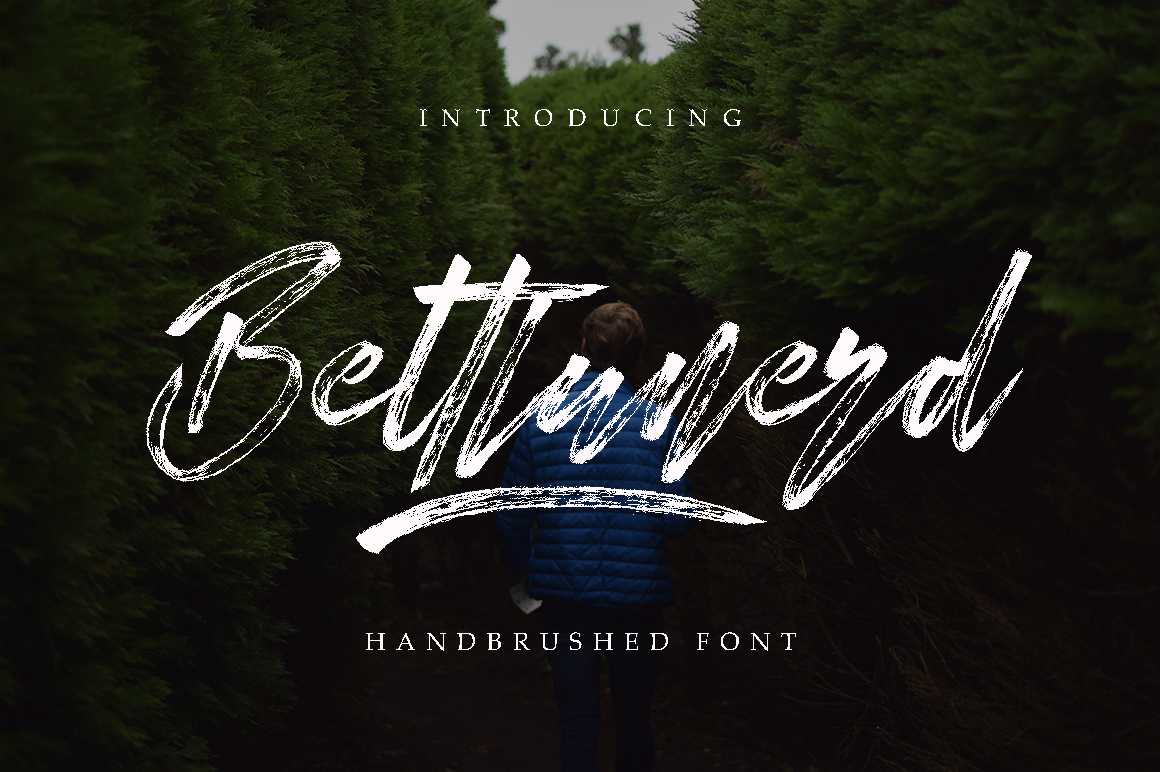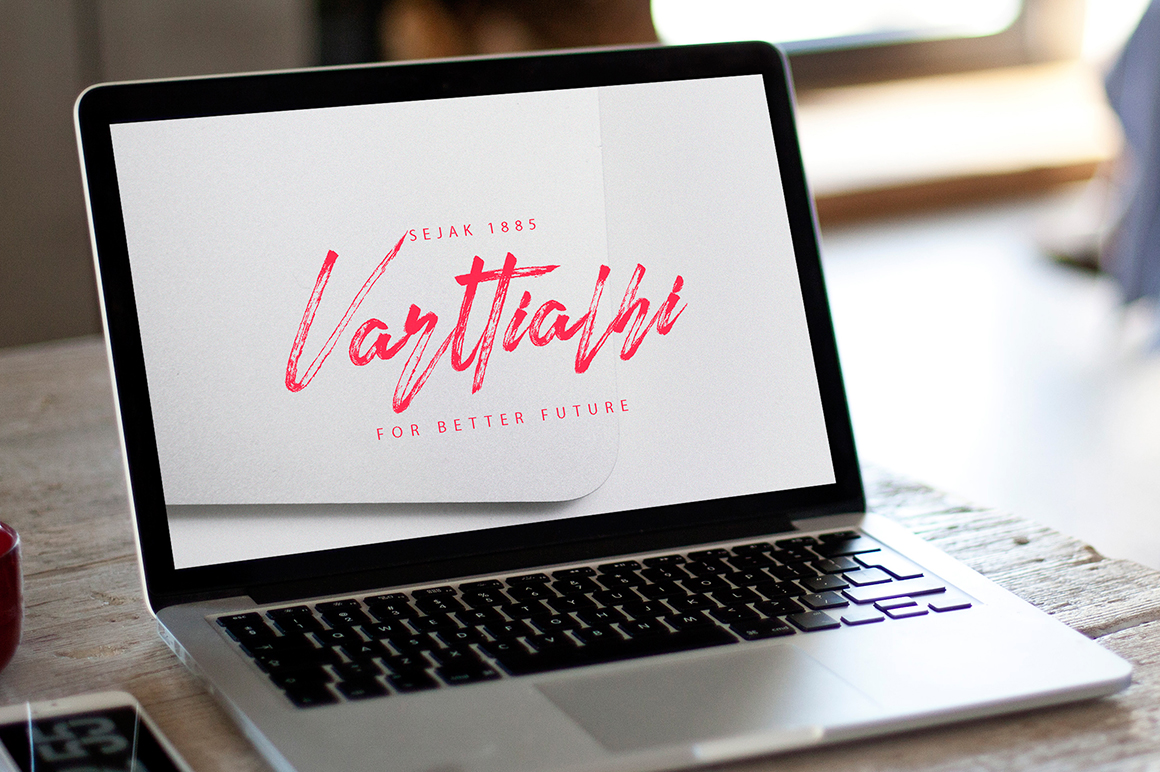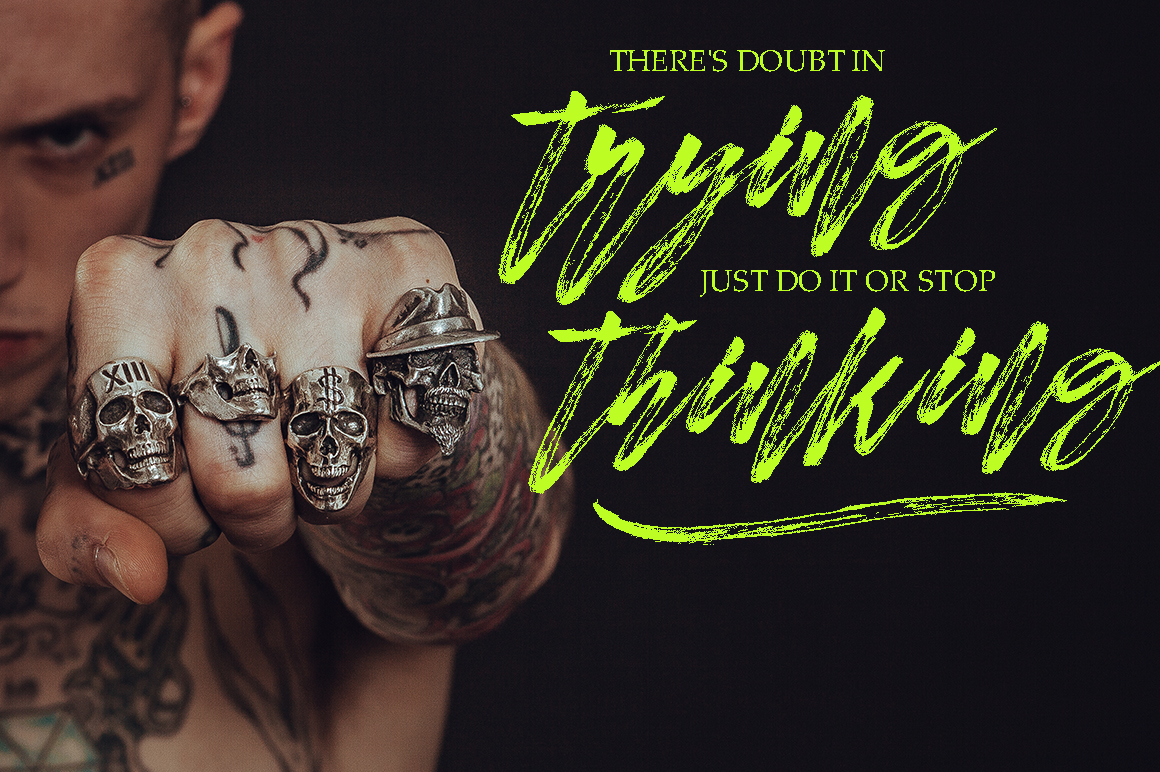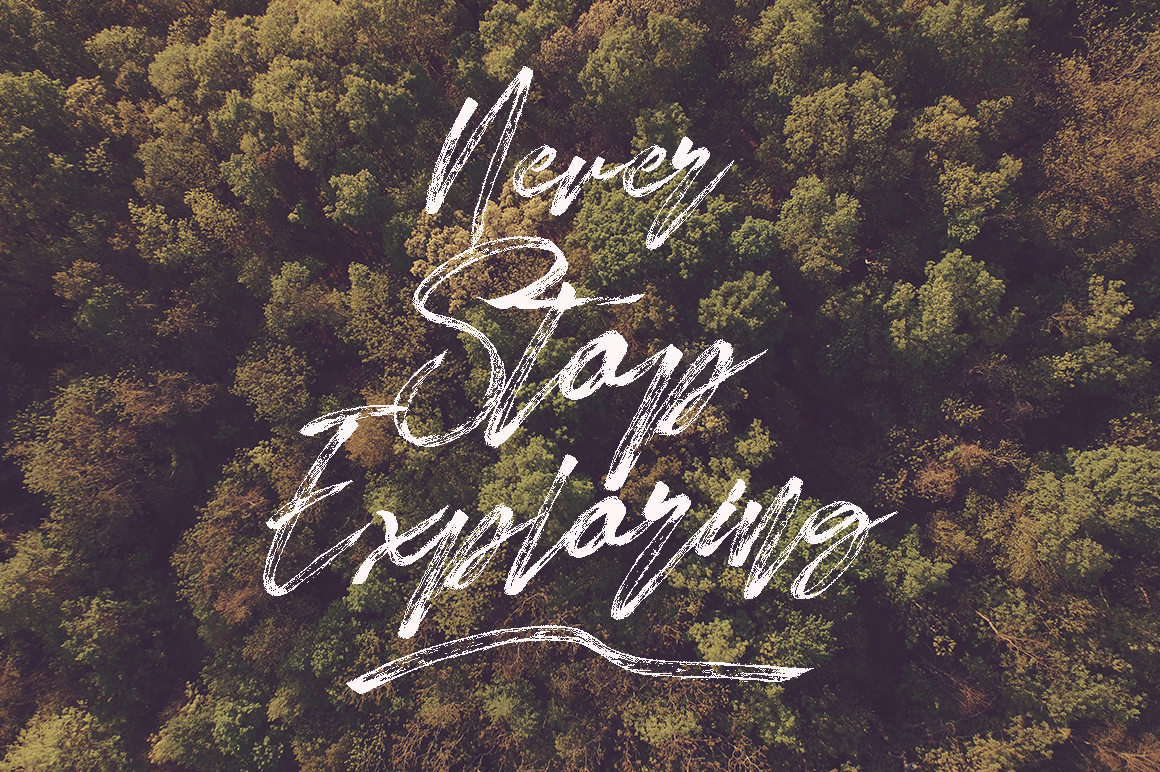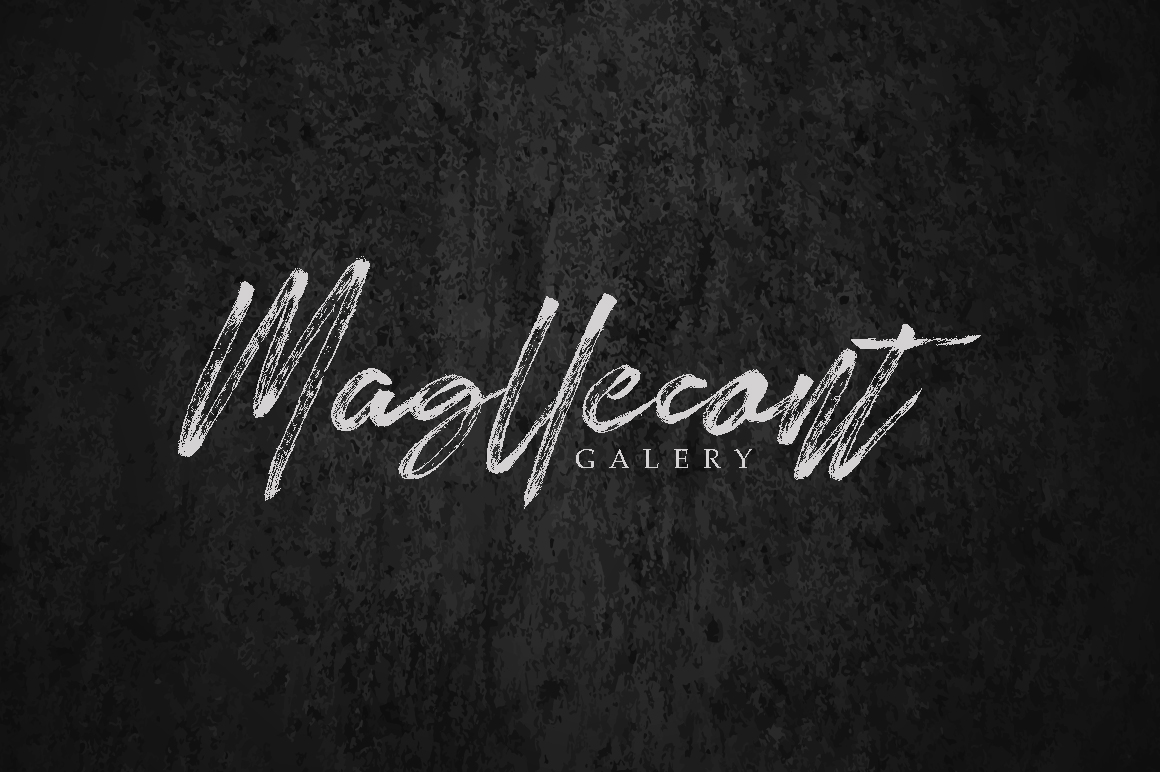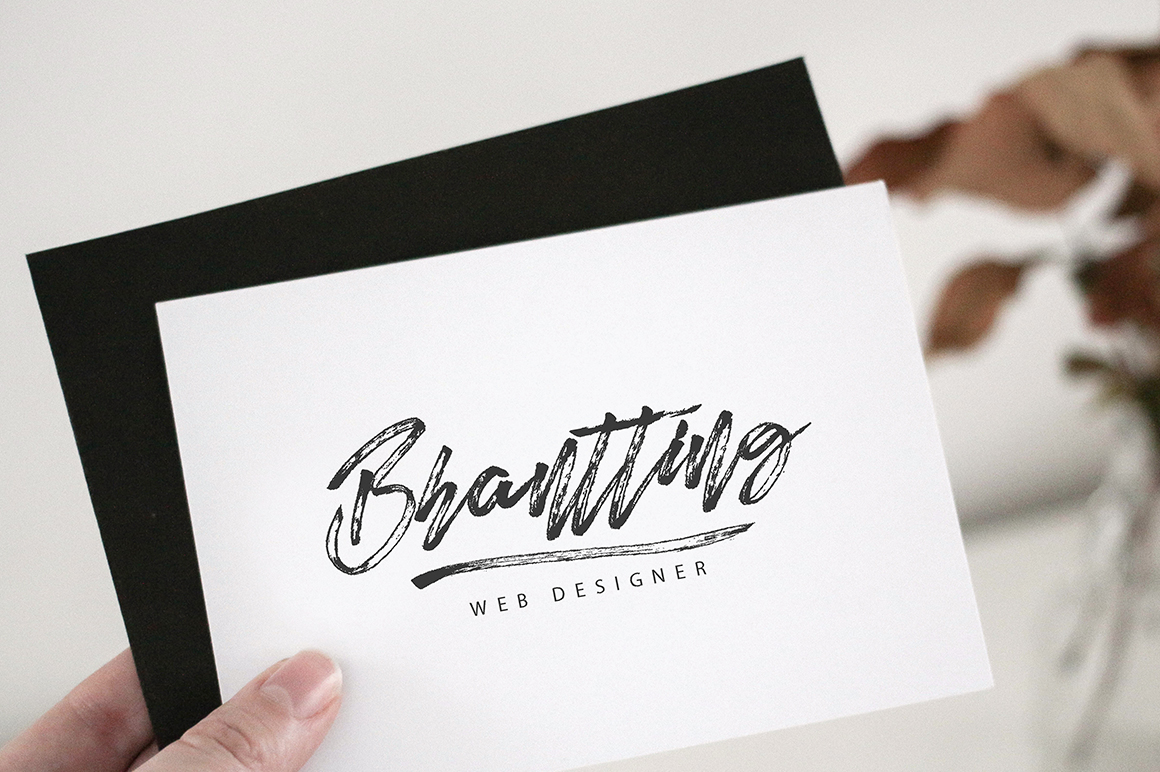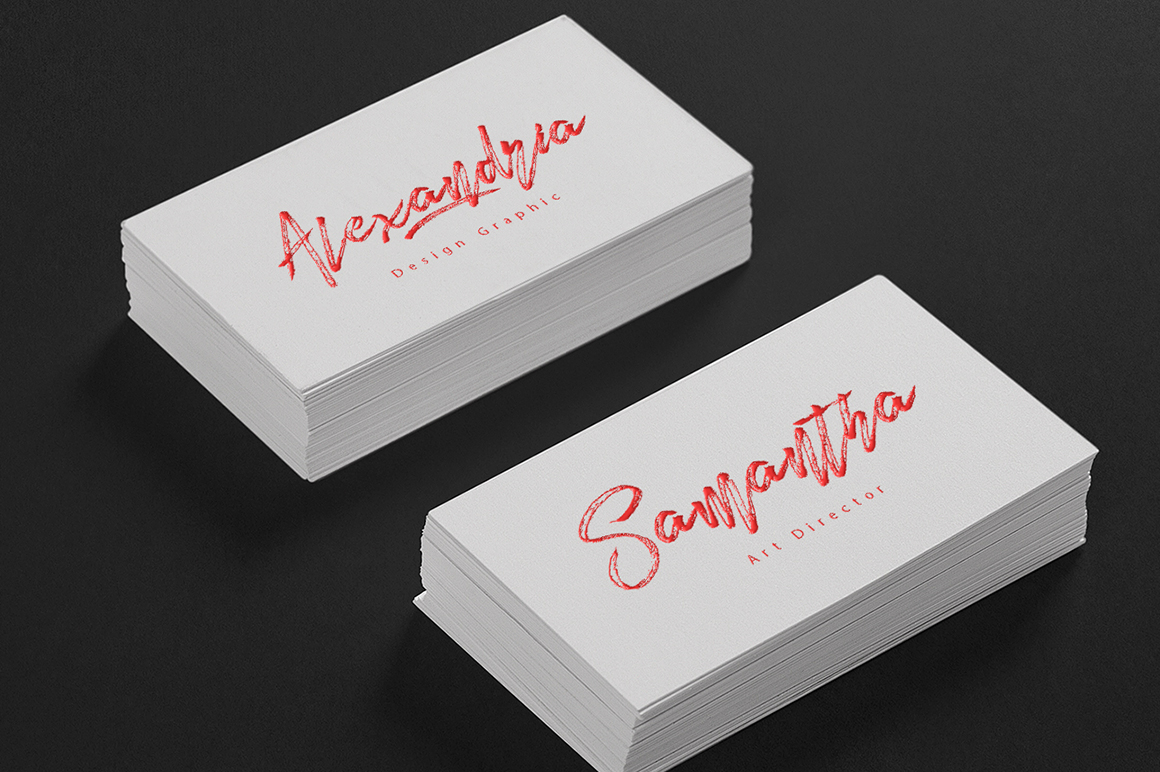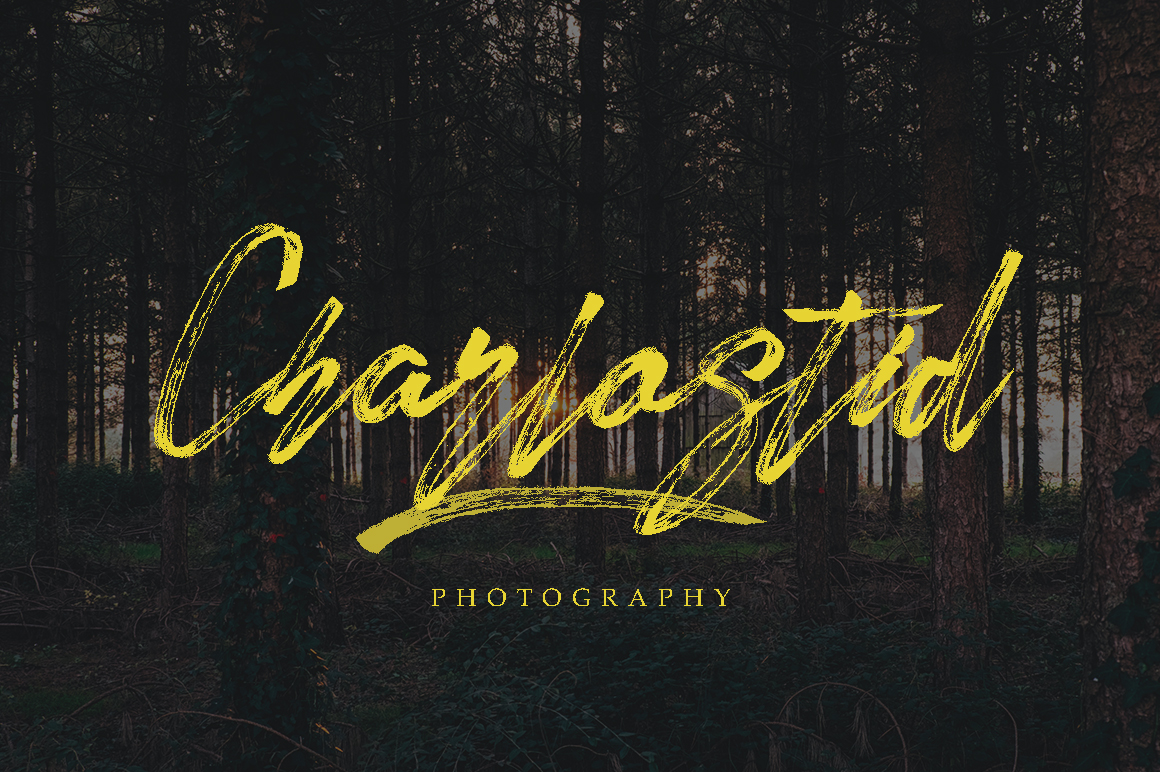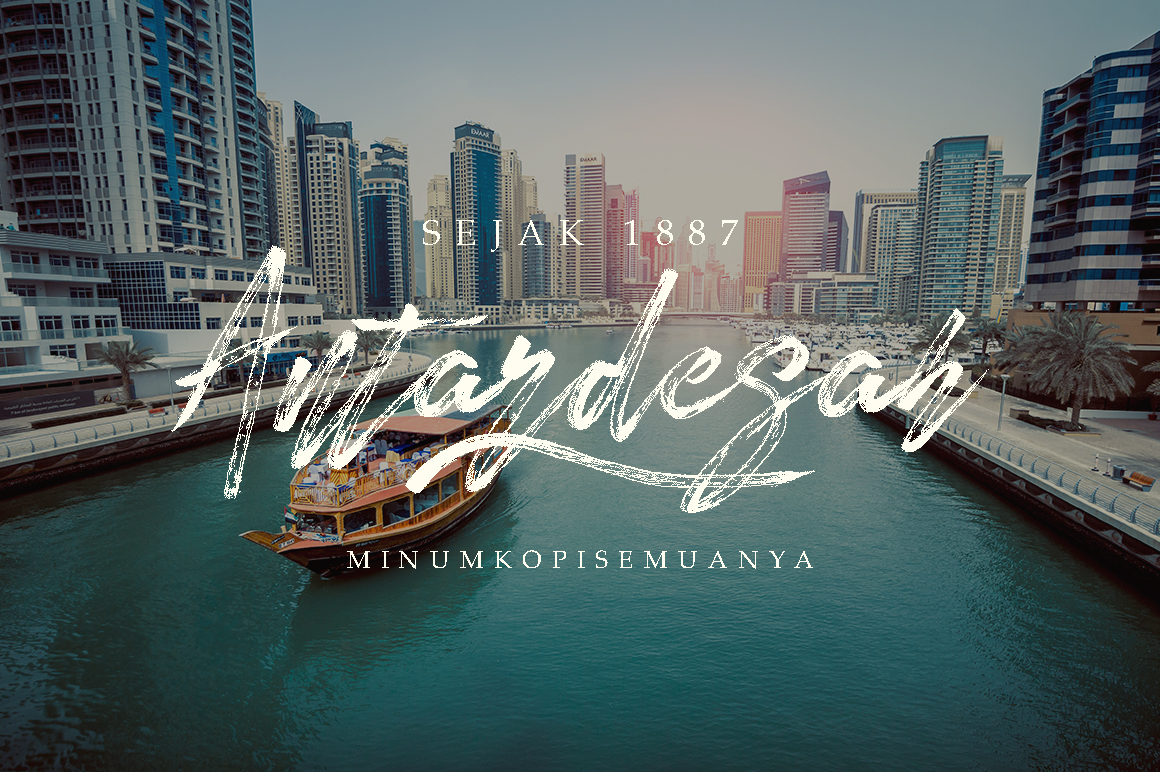
Bettlunerd Font
About Bettlunerd Font
Bettlunerd is a modern brush font. This modern script will work great on different projects and will allow you to add a stylish, personal touch.